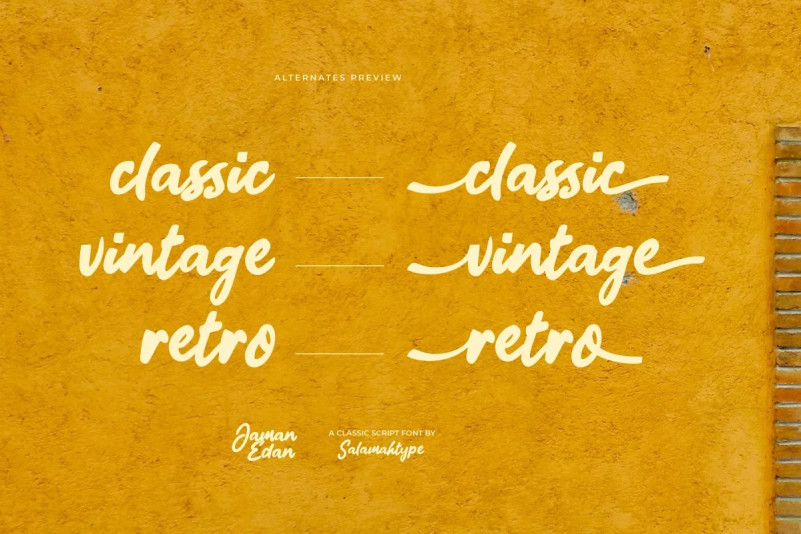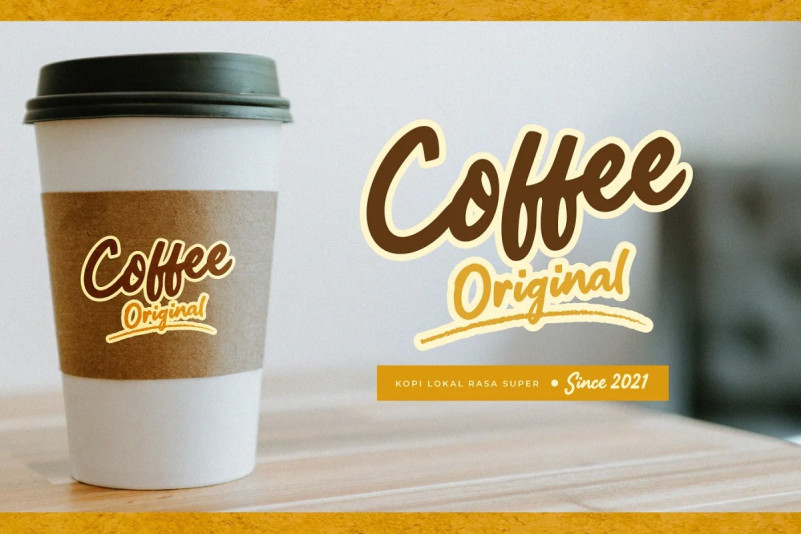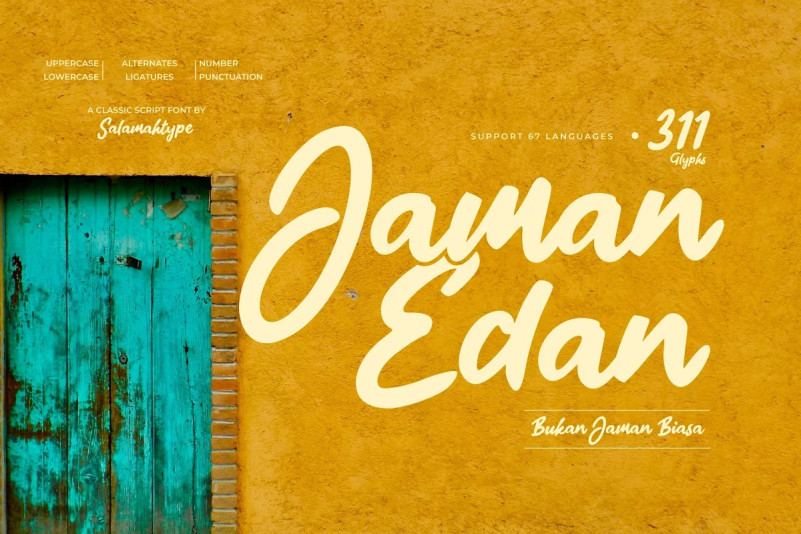
Jaman Edan Font
Jaman Edan Script Font is a script font comes with classic retro style, coupled with alternate characters that contain swashes make this font more unique, perfect for anyone who likes vintage style like this.
Jaman edan is suitable for product packaging, branding projects, logos, posters, advertisements, product designs, label, photography, social media posts and so much more.